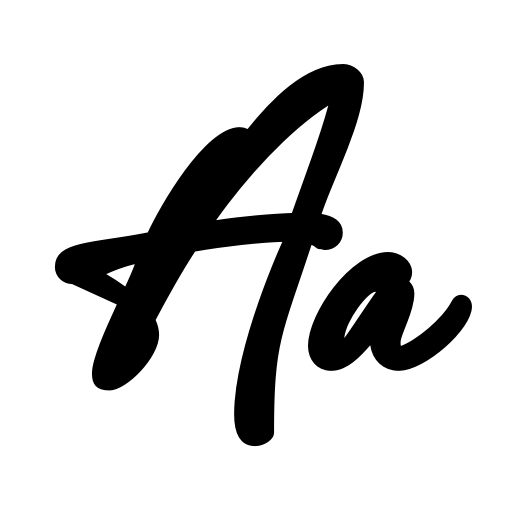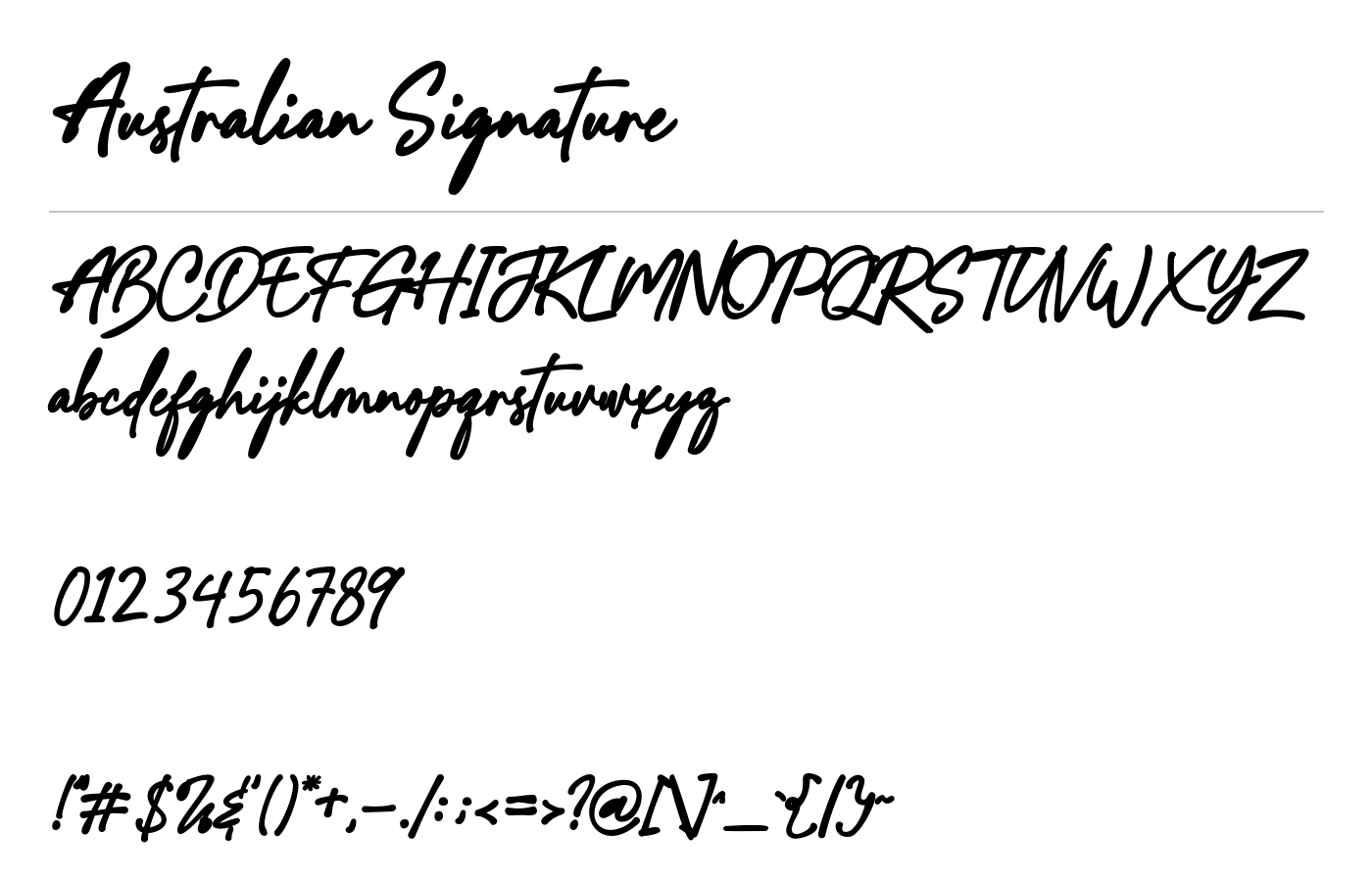
Australian Signature Font is a lively, handwritten script with a casual yet elegant flair, featuring smooth, connected strokes and moderate contrast that mimic a natural signature style. Its flowing letterforms and dynamic rhythm make it perfect for personal branding, invitations, and creative projects that seek a friendly, authentic, and stylish touch. This font works beautifully in logos and headlines, where its expressive character can shine and add a personalized, sophisticated feel.
Australian Signature Font
About Australian Signature Font